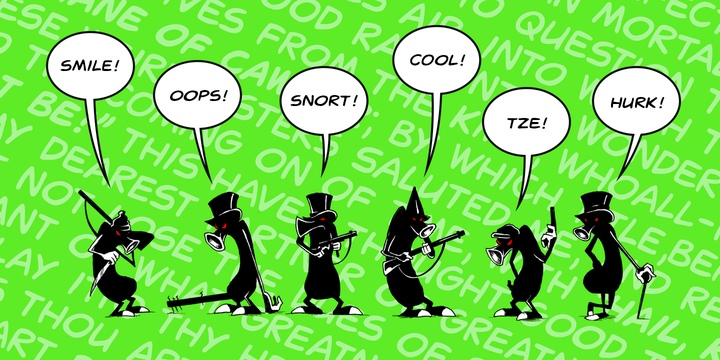
Pugnax Font
This combative typeface is perfect for fighting sports, martial arts gyms, boxing promotions, MMA events, combat training, warrior brands, aggressive campaigns, battle-themed games, and fierce competitive design applications.
What makes this font exciting is its fighting spirit combined with warrior authenticity, offering designers a combative typeface that captures the essence of martial prowess while delivering battle-tested strength and gladiator visual dominance.
The Pugnax font family includes light, regular, medium, bold, heavy, and warrior variations, providing complete combat design solutions for creating fierce fighting visual identities.
Whether you're developing martial arts brands or crafting competitive combat experiences, Pugnax Font Free Download brings exceptional fighting atmosphere and warrior authenticity to every application. This combative typeface combines traditional warrior typography with contemporary combat design, creating letterforms that inspire courage and celebrate fighting excellence. The font's battle construction and combat-ready details make it perfect for brands seeking immediate warrior recognition.
Pugnax Font features carefully engineered combative styling with authentic warrior character that conveys genuine fighting expertise. Each character has been designed with aggressive proportions and battle elements that enhance the fierce aesthetic. The font's combat qualities make it particularly effective for martial arts brands and fighting applications.
Professional designers choose Pugnax Font for projects requiring authentic combat credibility and warrior atmosphere. Its fighting heritage makes it exceptionally well-suited for martial arts schools, combat sports organizations, and warrior lifestyle brands. The font's versatile combative variations allow designers to control the fighting intensity, from subtle warrior elegance to full battle celebration.
The complete Pugnax Font package offers extensive combat ornaments and warrior decorative elements that enhance the fierce aesthetic. Advanced battle features allow designers to create complex fighting effects with multiple combat-inspired options. This comprehensive warrior toolkit ensures designers have everything needed to create authentic combat communications that celebrate the relentless spirit of martial excellence and gladiator fighting prowess.